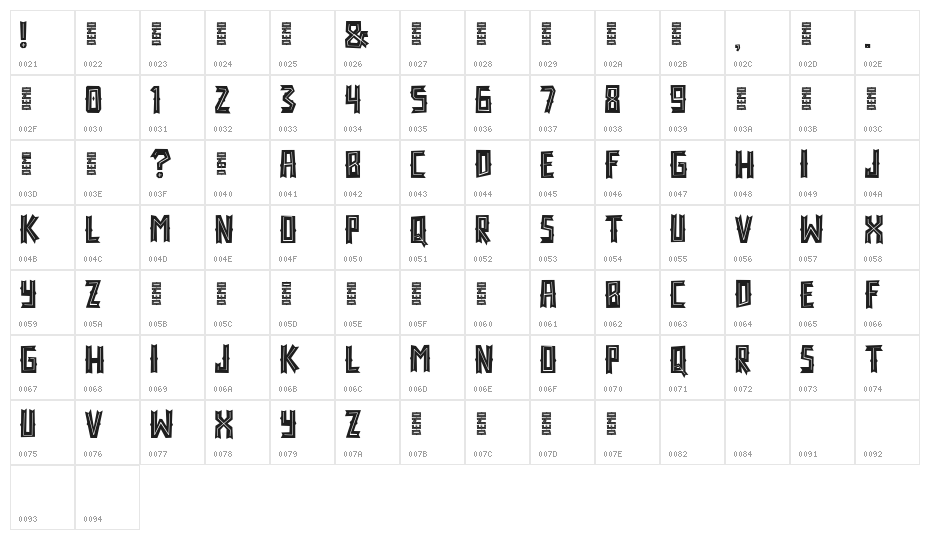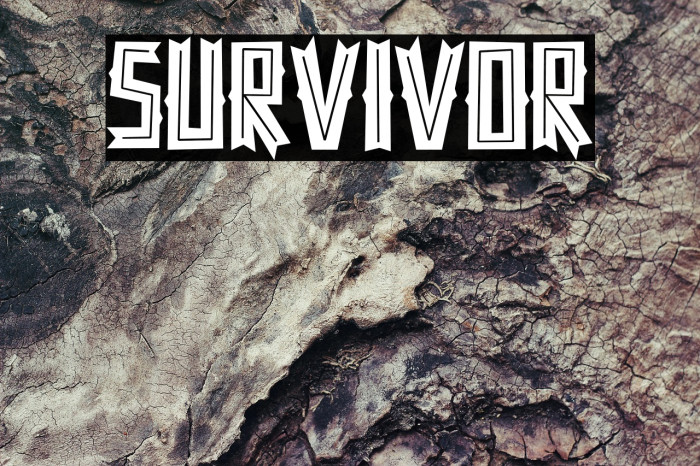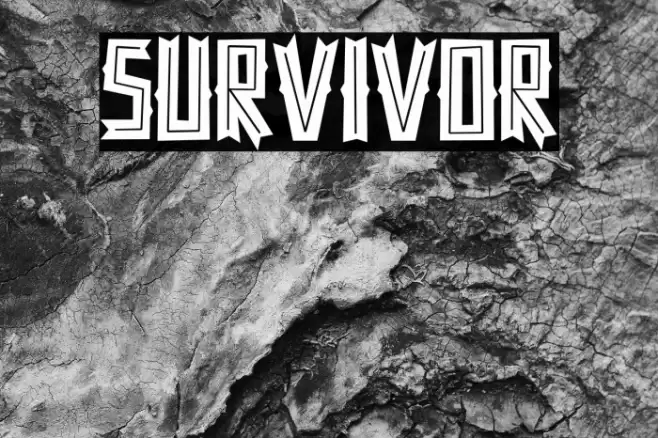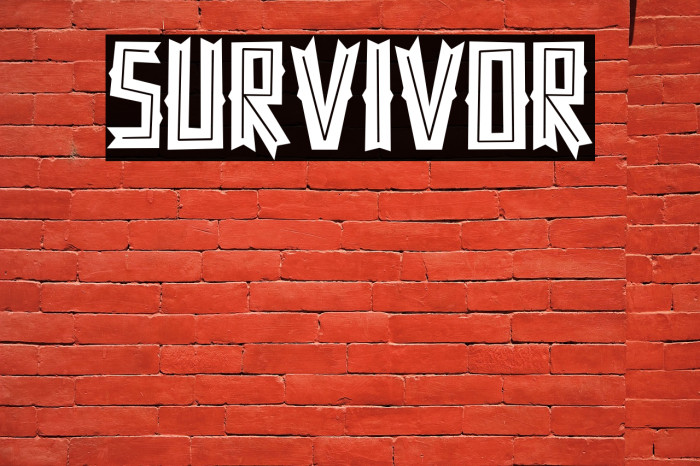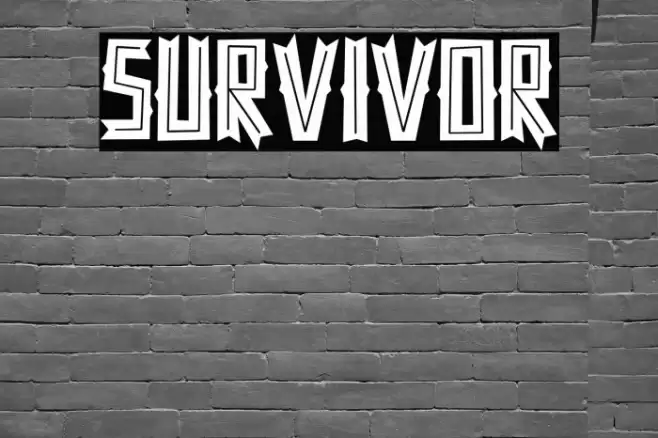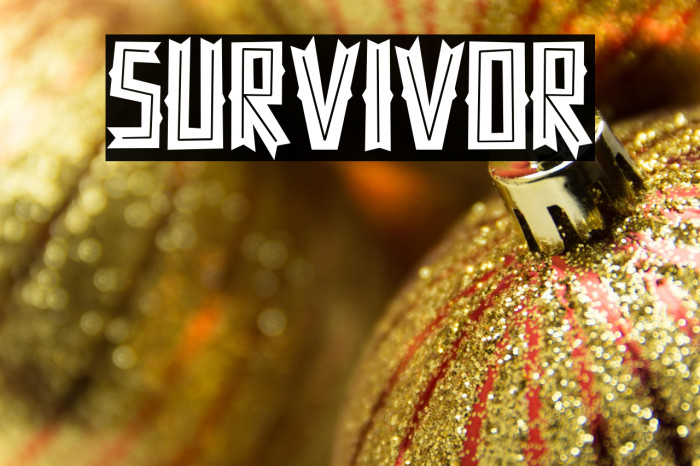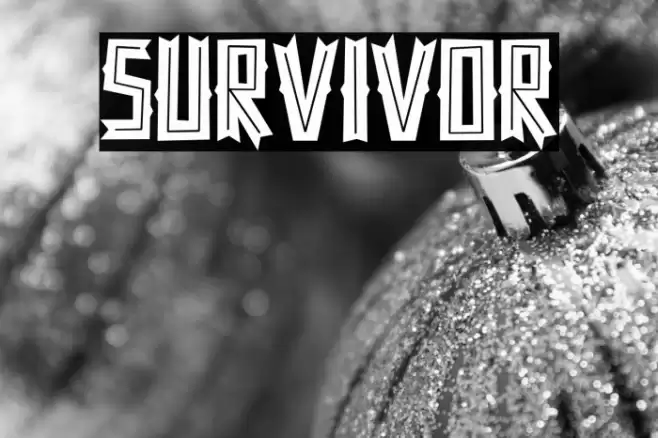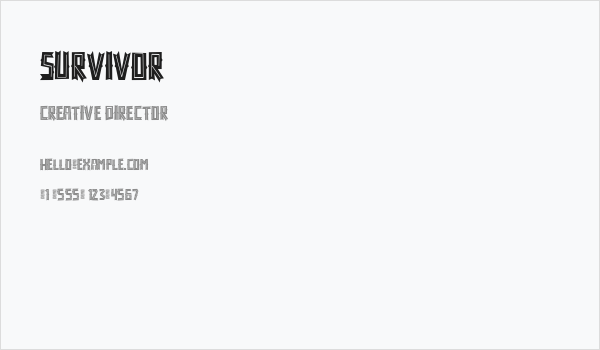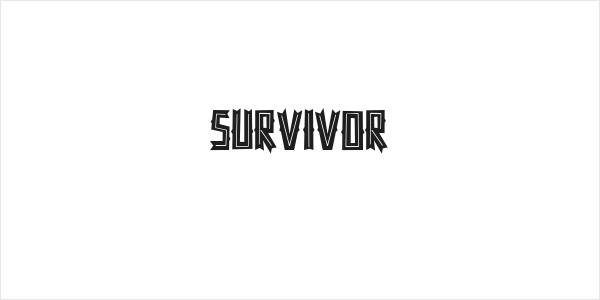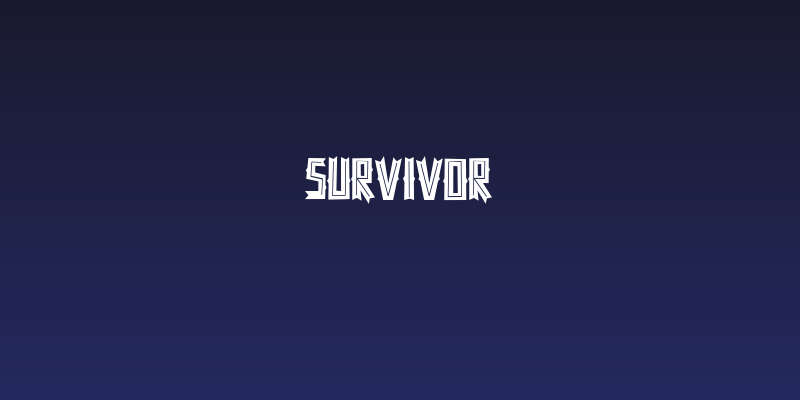
SURVIVOR Font
SURVIVOR Description
This font features a bold and striking design with sharp, angular edges and a geometric structure. The characters are crafted with a sense of ruggedness and strength, making them stand out with their thick strokes and unique cut-out elements. The uppercase letters are particularly prominent, with a blocky appearance that conveys a sense of power and resilience. The numerals and special characters maintain this bold aesthetic, ensuring consistency across the typeface. This font is ideal for projects that require a strong visual impact, such as branding for sports teams, action-themed posters, or video game titles.
Proposed ProjectsIdeal for sports branding, action posters, video game titles, and dynamic logos.